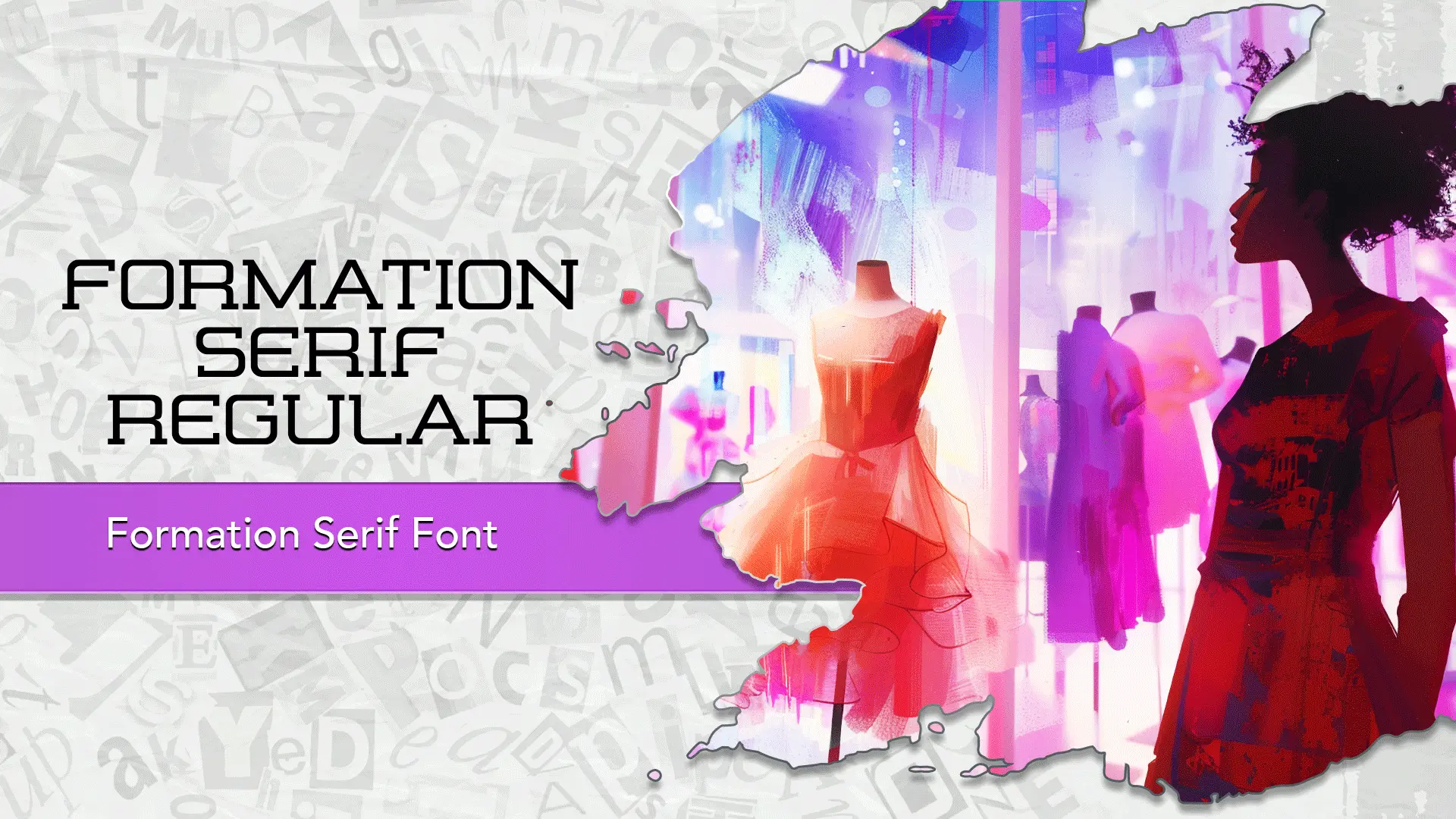
The Formation Serif font family may be ideal for you if you enjoy working on an artistic design project. The lively, expressive look of this typeface, which was created by Steve Gardner, makes it ideal for Luxury and High-End Branding, Editorial Design (Magazines, Books, Websites) Titles and Book Covers, Fashion Advertisements, Lookbooks and Catalogs, Invitations and Event Design, Art and Design Portfolios and other light-hearted visual projects.
Regular are the one primary font styles of the Formation Serif font family. You may build dynamic, visually appealing text layouts with the distinct flair that each style offers. With crisp, readable lines and a relaxed tone.